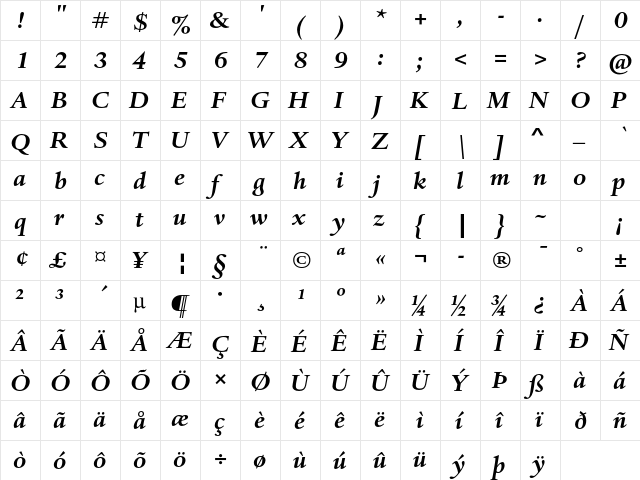
Haarlemmer MT Std Bold Italic Font Preview
Design Context for Haarlemmer MT Std Typeface
Haarlemmer MT Std takes a measured approach to typography — its balanced proportions and neutral character make it a reliable workhorse for both digital and print work. Its italic angle brings a sense of urgency and motion to the letterforms. Its bold stroke weight gives it real presence on the page.
Pro Tip: Try Haarlemmer MT Std for annotation and caption copy alongside an upright companion — the contrast in angle creates a dynamic but ordered typographic system.